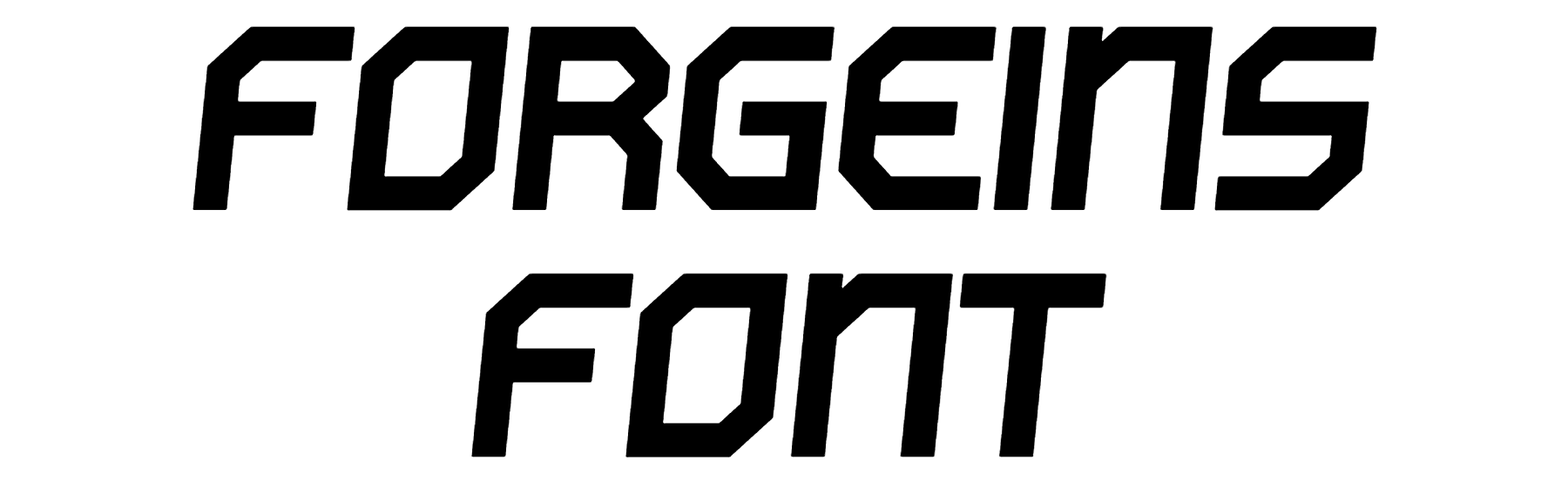
Forgeins
What You Can Type With Forgeins
You get every letter from A to Z in both cases and all the numbers from 0 to 9, which means Forgeins can handle full sentences, dates and prices. Common punctuation such as &, !, ? and $ is included as well. It also has the accented letters you need for Spanish, French, Portuguese and Italian.
Where Forgeins Works Best
Designers usually reach for fonts like Forgeins when they're making everyday text, websites and clean logos. Fonts like this are workhorses: use them for body text, captions and anything people need to read quickly.
Who designed Forgeins font?
Forgeins was designed by Hola Design. The copyright line inside the font is dated 2024.
Does Forgeins support accented letters?
Yes. Forgeins includes the accented letters needed for Spanish, French, Portuguese and Italian, so it works for more than just English.